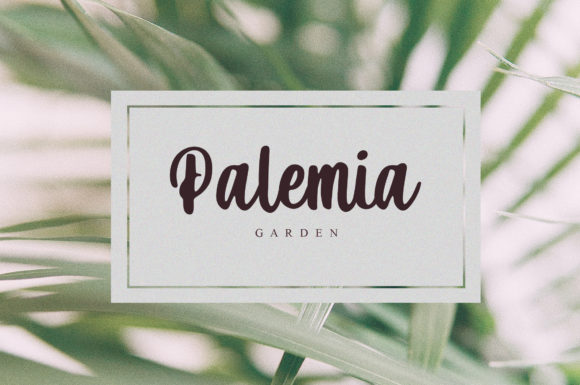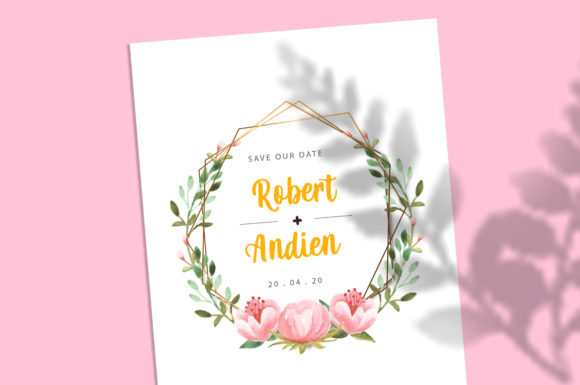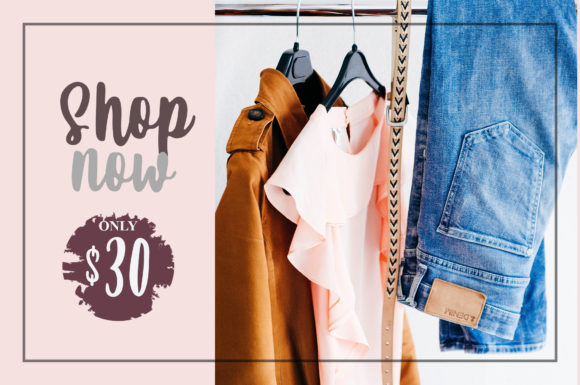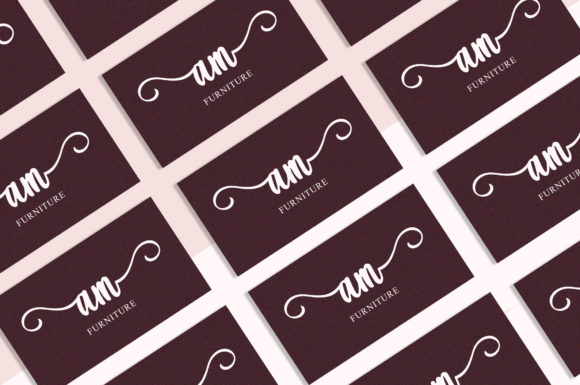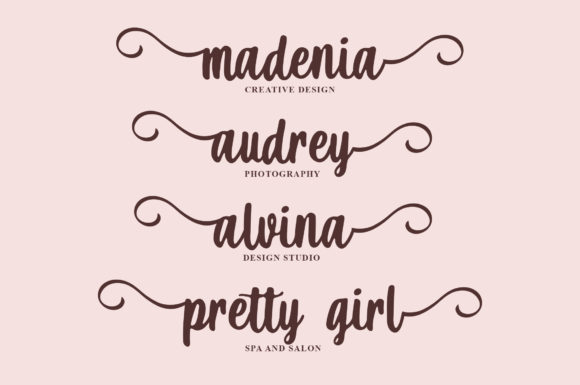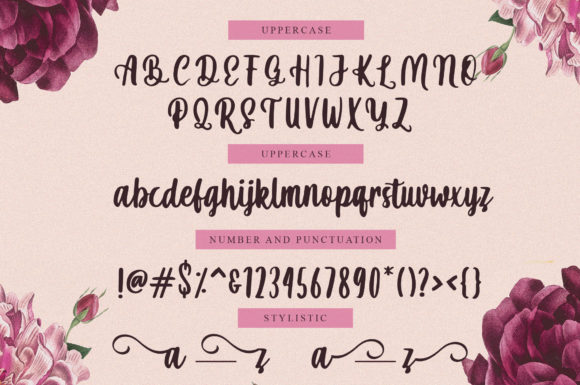
Introduction to Mahira Font
Have you ever been stuck trying to find the perfect font to bring your creative vision to life? It’s a moment we’ve all experienced – scrolling through countless options, searching for that one elusive design element that elevates our project from good to great. For designers, the hunt for the perfect font can be a long and arduous process, but what if I told you that your search is over?
Enter the enchanting Mahira Font, a sumptuously sweet and charming handwritten font that adds an unmistakable touch of romance to any creative project. This high-quality design resource is a game-changer for designers seeking to infuse their work with a delicate, ethereal feel.
Key Features of Mahira Font
- High-quality, unique design ideal for creative projects and design resources.
- Unique characteristics, such as elegant and sophisticated lines, set it apart from other fonts.
- Perfect for use in logos, branding materials, and other design elements where a high-quality font is required.
Honest Review: Mahira Font
I recently had the chance to work with the Mahira Font, and I must say it’s been a great addition to my design resource collection. As a designer, I’m always on the lookout for high-quality fonts that can elevate my creative projects.
Here are some of the things that I think work well with the Mahira Font: ✨
- Beautiful, elegant script that adds a touch of sophistication to any design
- The font may not be as versatile as some other script fonts on the market
- It’s not suitable for use in all languages, due to its specific design and character set
Overall, I think the Mahira Font is a great choice for designers who are looking for a high-quality, elegant script font to add some sophistication to their creative projects. It’s definitely worth checking out!
Mahira Font
The Mahira Font is a high-quality design resource ideal for creative projects that require a unique and stylish touch. With its transparent background, this font can be easily customized to fit any design need.
The Mahira Font is perfect for creative projects such as:
- Presentations and slideshows
- Document design and formatting
Alternatives to Mahira Font